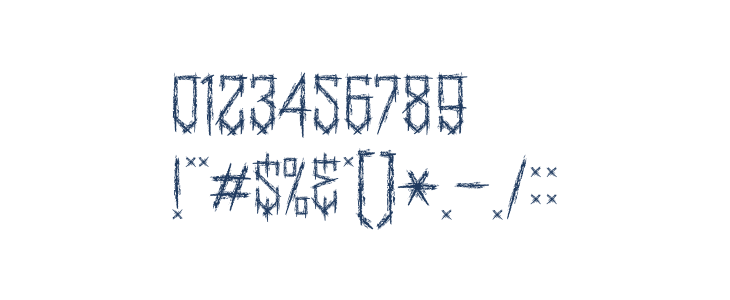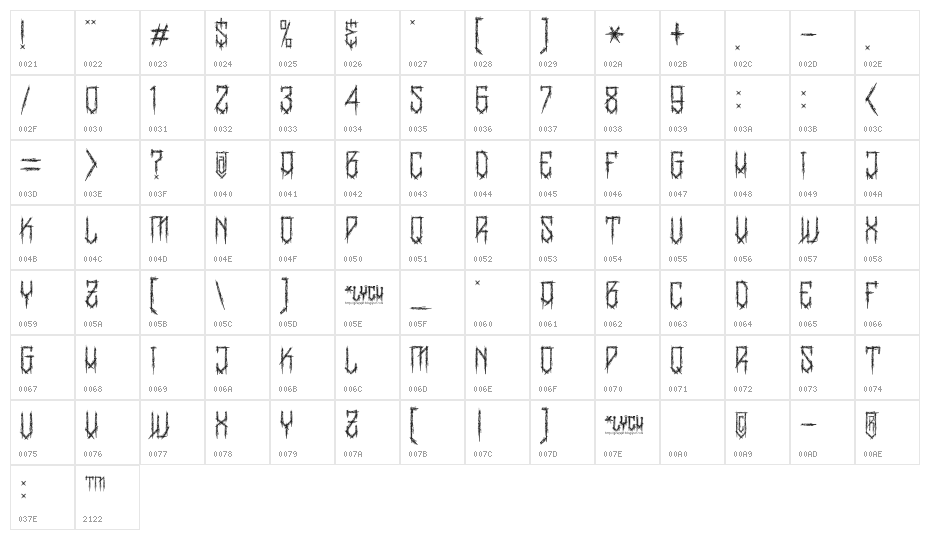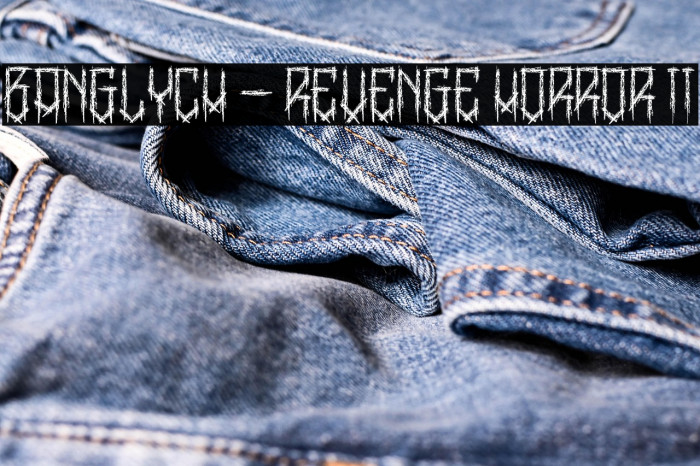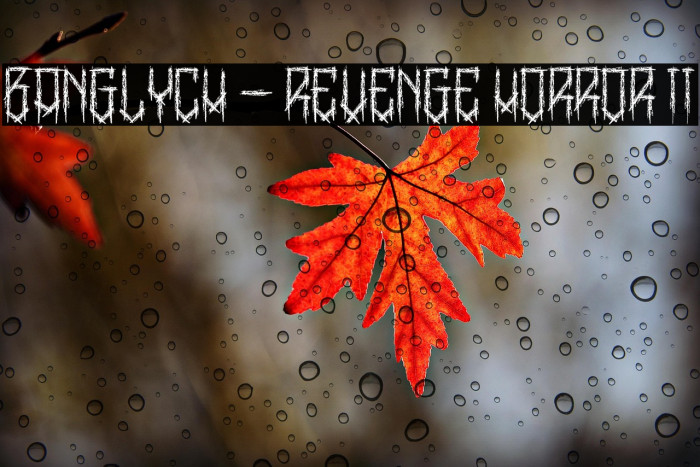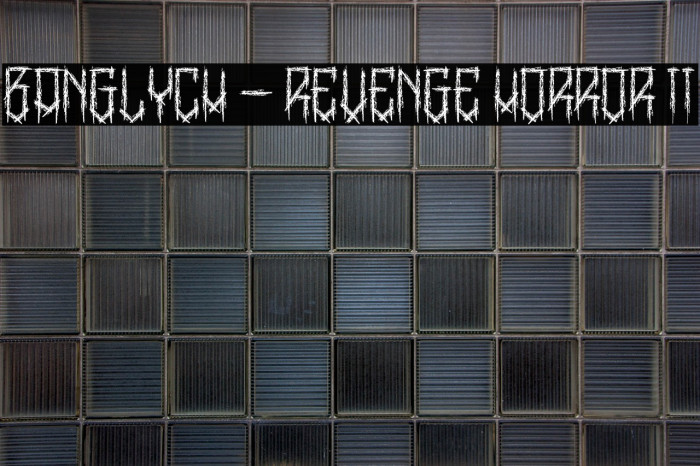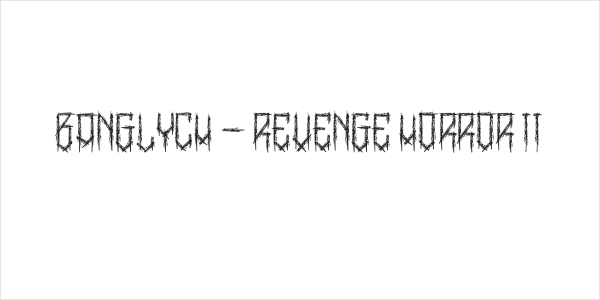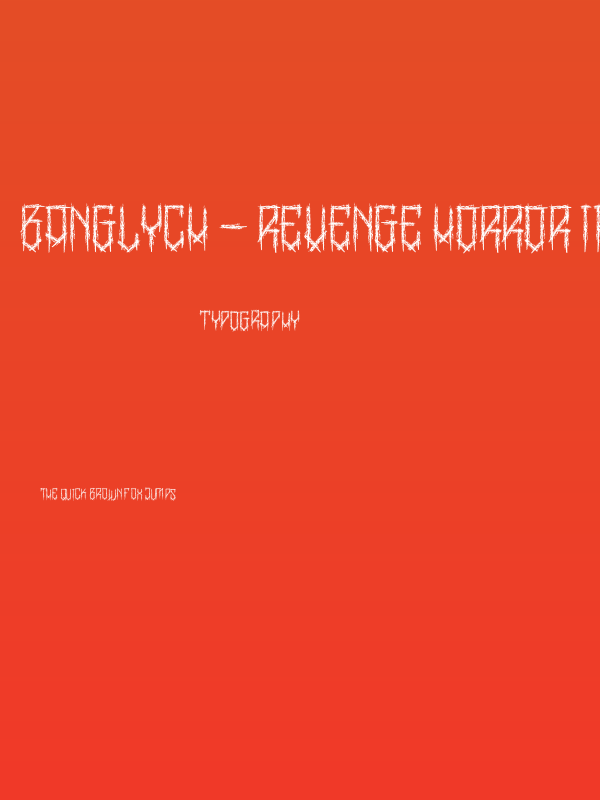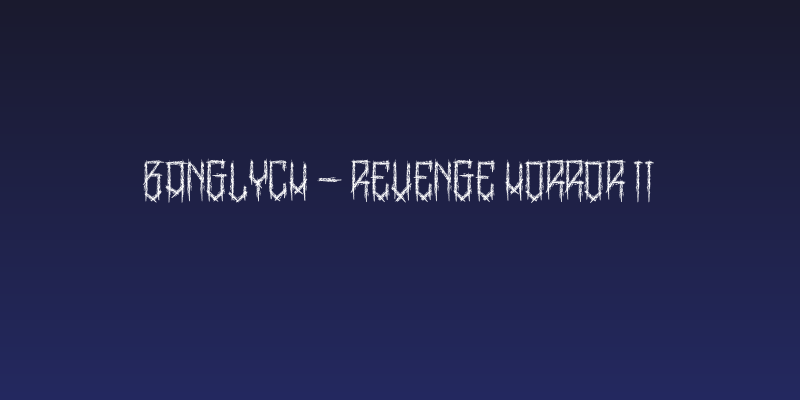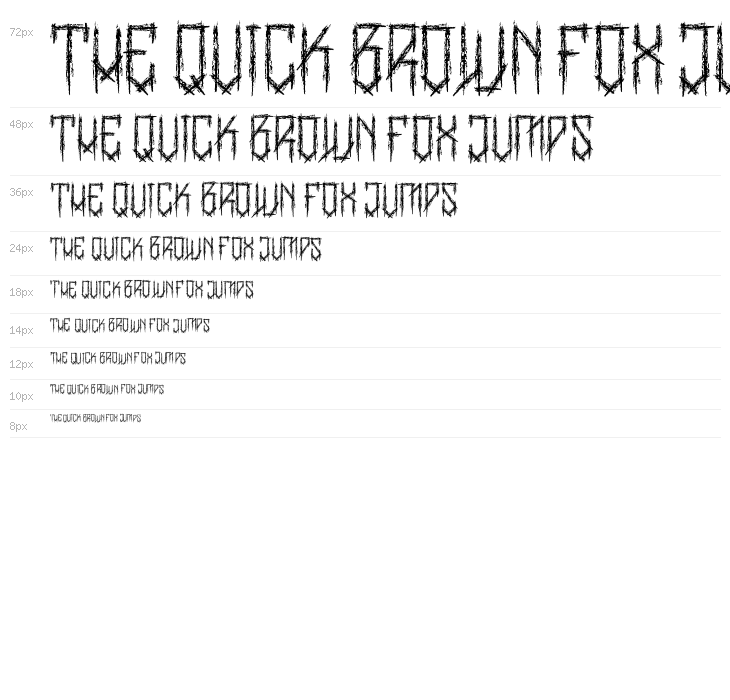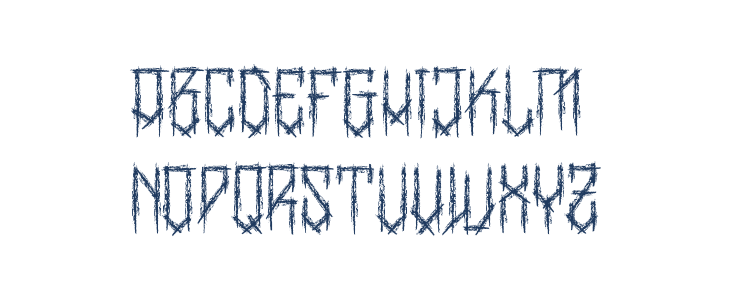
BangLYCH - Revenge Horror II Font
BangLYCH - Revenge Horror II Description
This font exudes a chilling and eerie aesthetic, perfect for horror-themed projects. The characters are jagged and irregular, resembling scratch marks or thorny branches, which contribute to its unsettling appearance. The uppercase and lowercase letters maintain a consistent style, with sharp edges and a distressed texture that enhances the horror vibe. Numbers and special characters follow the same design principles, ensuring a cohesive look across all elements. This font is ideal for creating suspenseful and dramatic titles, posters, or any design that requires a touch of the macabre.
| Overall Style | Horror, Distressed, Eerie |
| Use Case | Headlines, Posters, Themed Events |
| Proposed Projects | Ideal for horror movie posters, Halloween invitations, spooky event flyers, and eerie book covers. |